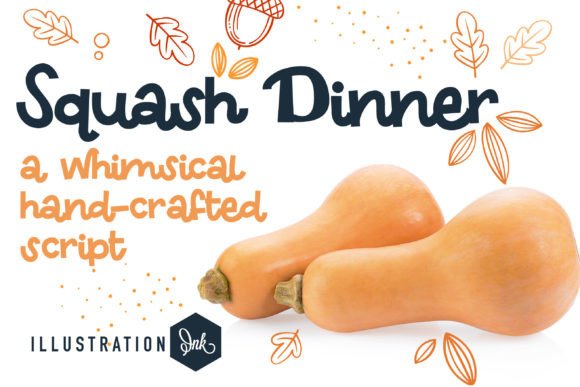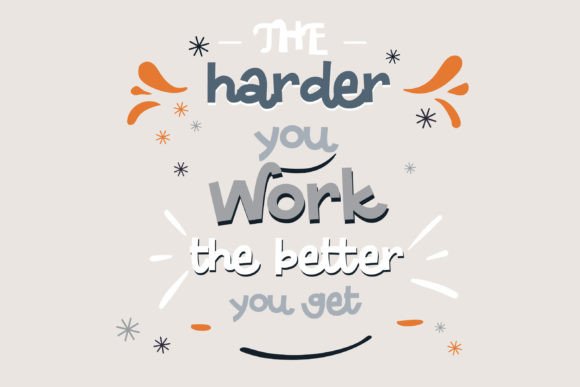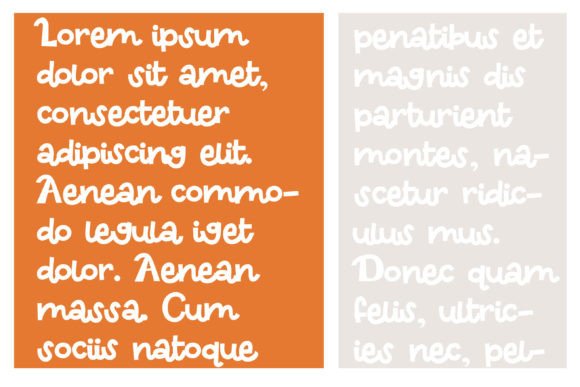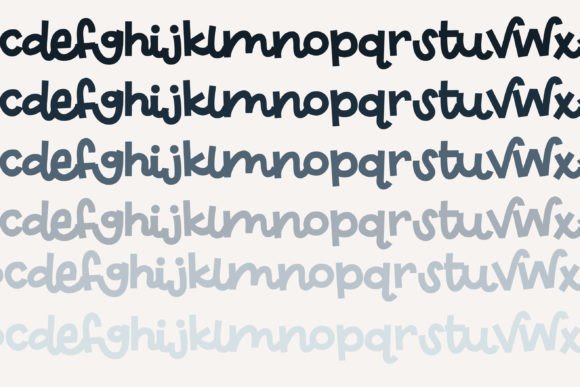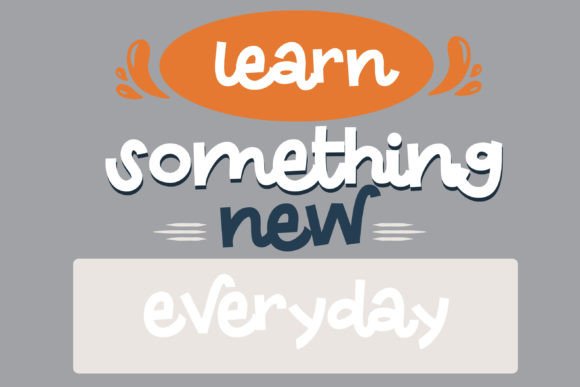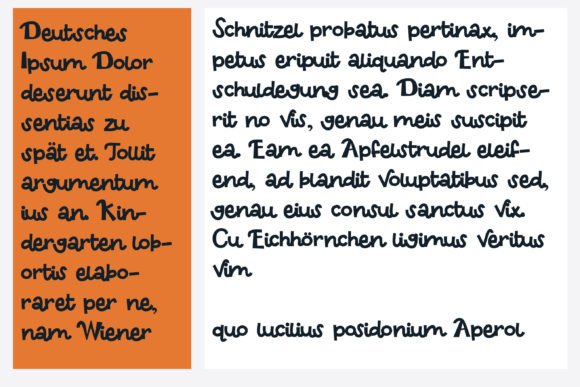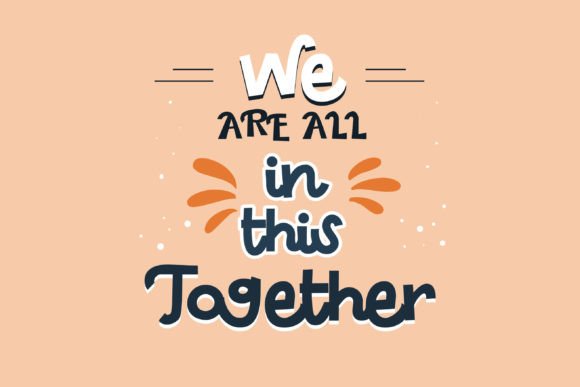
Squash Dinner Font
About Squash Dinner Font
Squash Dinner Font Download brings you a bold and fun display typeface full of personality. Its playful curves and energetic style make it perfect for designers who want to add excitement and charm to their projects. Whether you are working on digital designs or print materials, this font stands out with its lively appearance.
Bold and Creative Style
The strength of Squash Dinner lies in its versatility. Its bold strokes are ideal for attention-grabbing headlines, while its quirky letterforms keep the design approachable. Here are a few creative uses for this font:
• Greeting cards and invitations
• Craft projects and handmade labels
• Digital designs, social media graphics, and blogs
• Posters, banners, and advertisements
• Branding and logo design for playful brands
Perfect for Print and Digital Projects
Whether you’re designing stickers, merchandise, or promotional material, Squash Dinner adapts beautifully. Pair it with a clean serif or sans serif font for balance, or let it shine alone as a bold headline typeface. Its strong yet friendly style ensures your message gets noticed.